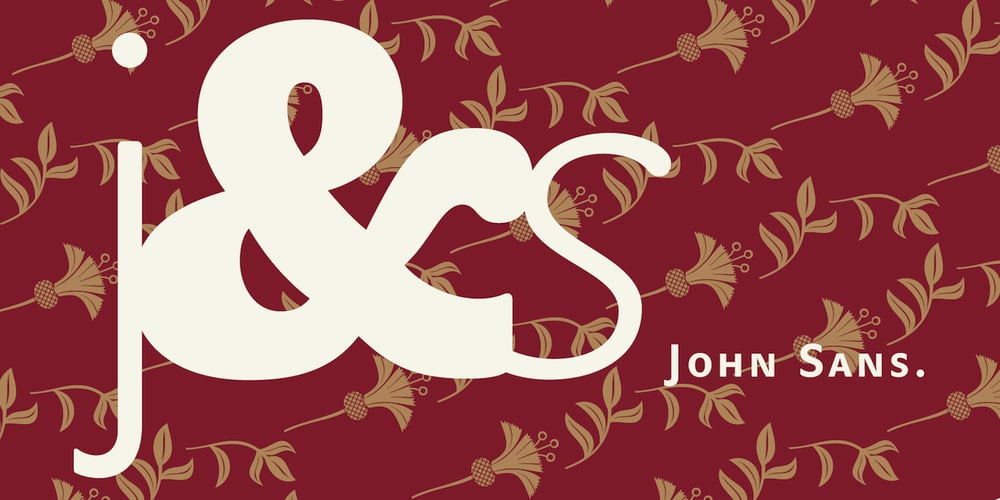
John Sans Font Family was designed by František Štorm and published by Storm Type Foundry. John Sans contains 32 styles and family package options. The idea of a brand-new grotesk is certainly rather foolish – there are already lots of these typefaces in the world and, quite simply, nothing is more beautiful than the original Gill. The sans-serif chapter of typography is now closed by hundreds of technically perfect imitations of Syntax and Frutiger, which are, however, for the most part based on the cool din-aesthetics. The only chance, when looking for inspiration, is to go very far… A grotesk does not afford such a variety as a serif typeface, it is dull and can soon tire the eye. This is why books are not set in sans serif faces. A grotesk is, however, always welcome for expressing different degrees of emphasis, for headings, marginal notes, captions, registers, in short for any service accompaniment of a book, including its titlings. We also often come across a text in which we want to distinguish the individual speaking or writing persons by the use of different typefaces. The condition is that such grotesk should blend in perfectly with the proportions, colour and above all with the expression of the basic, serif typeface. In the area of non-fiction typography, what we appreciate in sans-serif typefaces is that they are clamorous in inscriptions and economic in the setting. John Sans is to be a modest servant and at the same time an original loudspeaker; it wishes to inhabit libraries of educated persons and to shout from billboards. A year ago we completed the transcription of the typefaces of John Baskerville, whose heritage still stands out vividly in our memory. Baskerville cleverly incorporated certain constructional elements in the design of the individual letters of his typeface. These elements include above all the alternation of softand sharp stroke endings. The frequency of these endings in the text and their rhythm produce a balanced impression. The anchoring of the letters on the surface varies and they do not look monotonous when they are read. We attempted to use these tricks also in the creation of a sans-serif typeface. Except that, if we wished to create a genuine “Baroque grotesk”, all the decorativeness of the original would have to be repeated, which would result in a parody. On the contrary, to achieve a mere contrast with the soft Baskerville it is sufficient to choose any other hard grotesk and not to take a great deal of time over designing a new one. Between these two extremes, we chose a path starting with the construction of an almost monolinear skeleton, to which the elements of Baskerville were carefully attached. After many tests of the text, however, some of the flourishes had to be removed again. Anything that is superfluous or ornamental is against the substance of a grotesk typeface. The monolinear character can be impinged upon in those places where any consistency would become a burden. The fine shading and softening is for the benefit of both legibility and aesthetics. The more marked incisions of all crotches are a characteristic feature of this typeface, especially in the bold designs. The colour of the Text, Medium and Bold designs is commensurate with their serif counterparts. The White and X-Black designs already exceed the framework of book graphics and are suitable for use in advertisements and magazines. The original concept of the italics copying faithfully Baskerville’s morphology turned out to be a blind alley. This design would restrict the independent use of the grotesk typeface. We, therefore, began to model the new italics only after the completion of the upright designs. The features which these new italics and Baskerville have in common are the angle of the slope and the softened sloped strokes of the lower case letters. There are also certain reminiscences in the details (K, k). More complicated are the signs & and @, in the case of which regard is paid to distinguishing, in the design, the upright, sloped @ small caps forms. The one-storey lower-case g and the absence of a descender in the lower-case f contributes to the open and simple expression of the design. Also the inclusion of non-aligning figures in the basic designs and of aligning figures in small caps serves the purpose of harmonization of the sans-serif families with the serif families. Non-aligning figures link up better with lower-case letters in the text. If John Sans looks like many other modern typefaces, it is just as well. It certainly is not to the detriment of a Latin typeface as a means of communication, if different typographers in different places of the world arrive in different ways at a similar result.